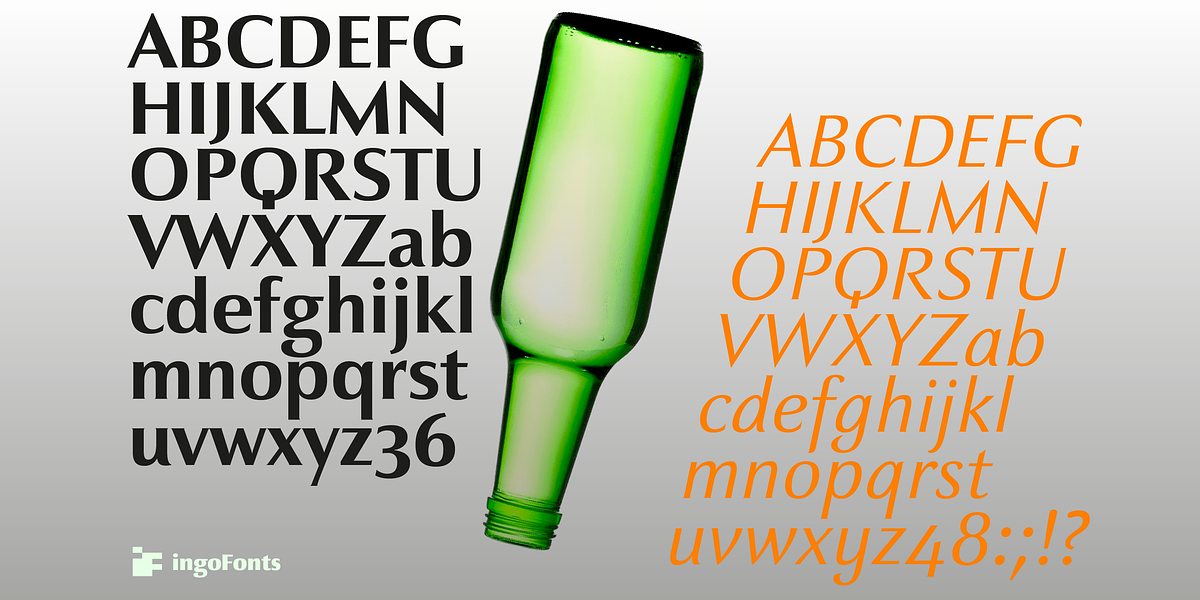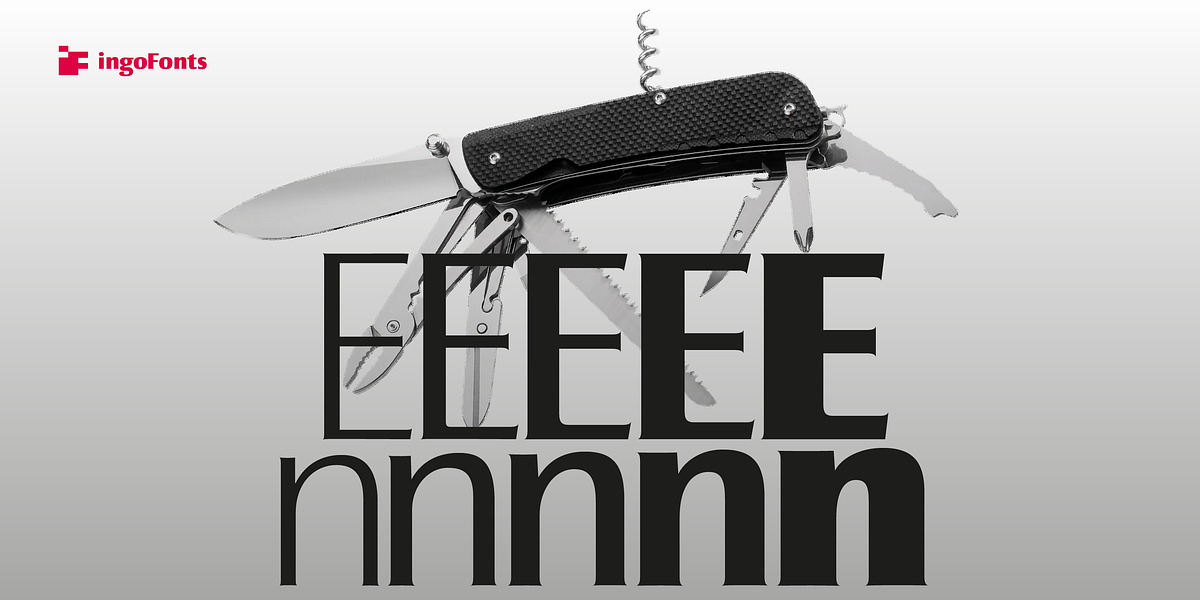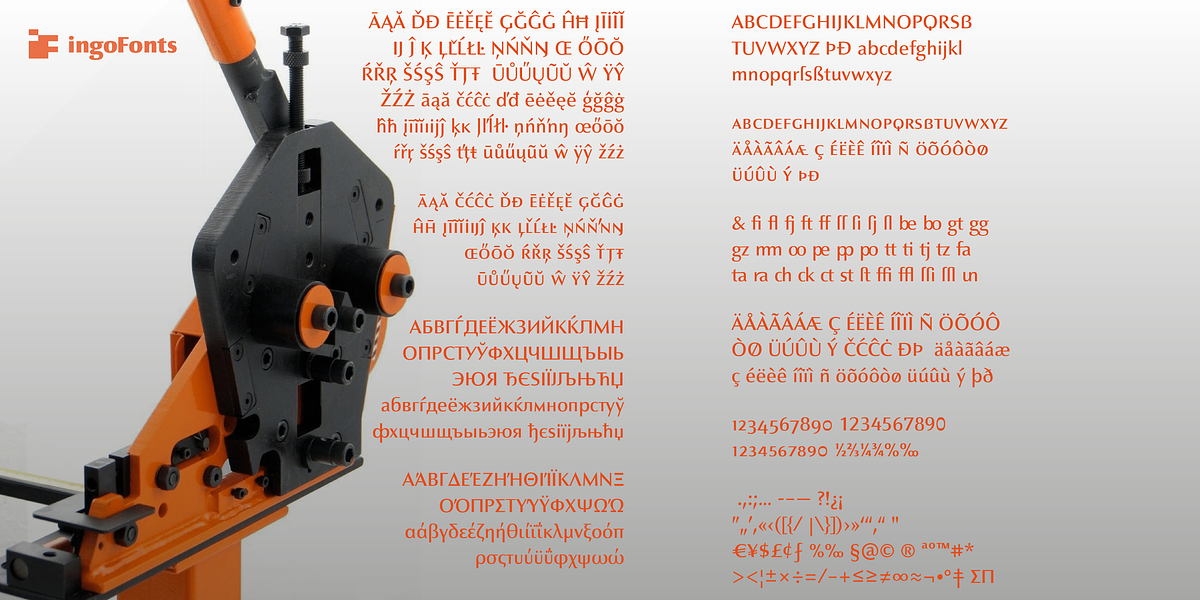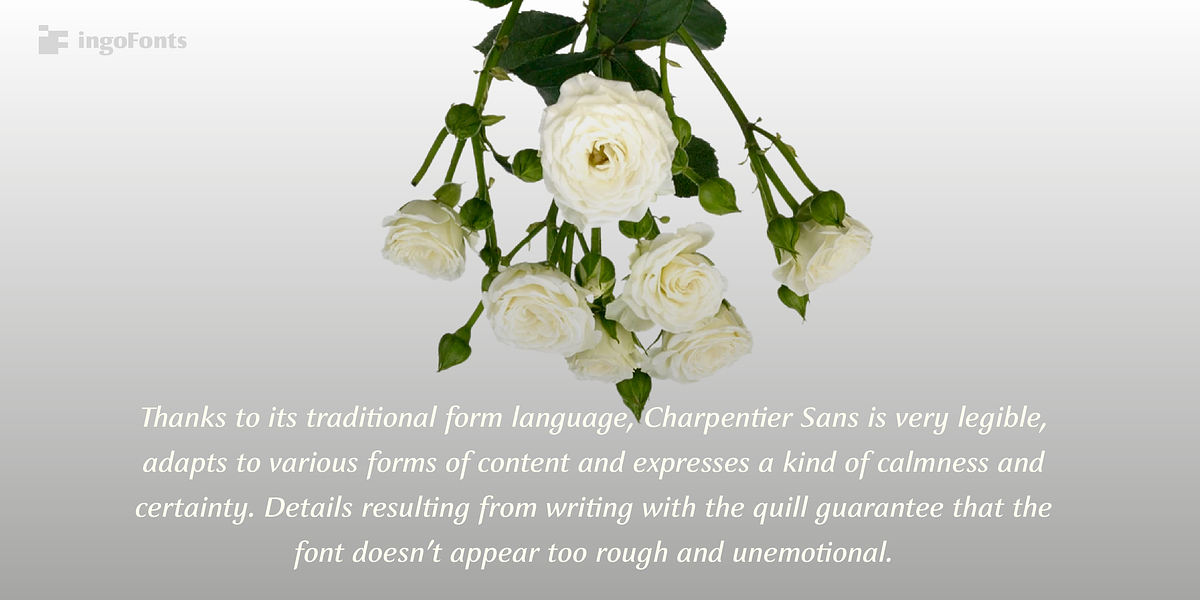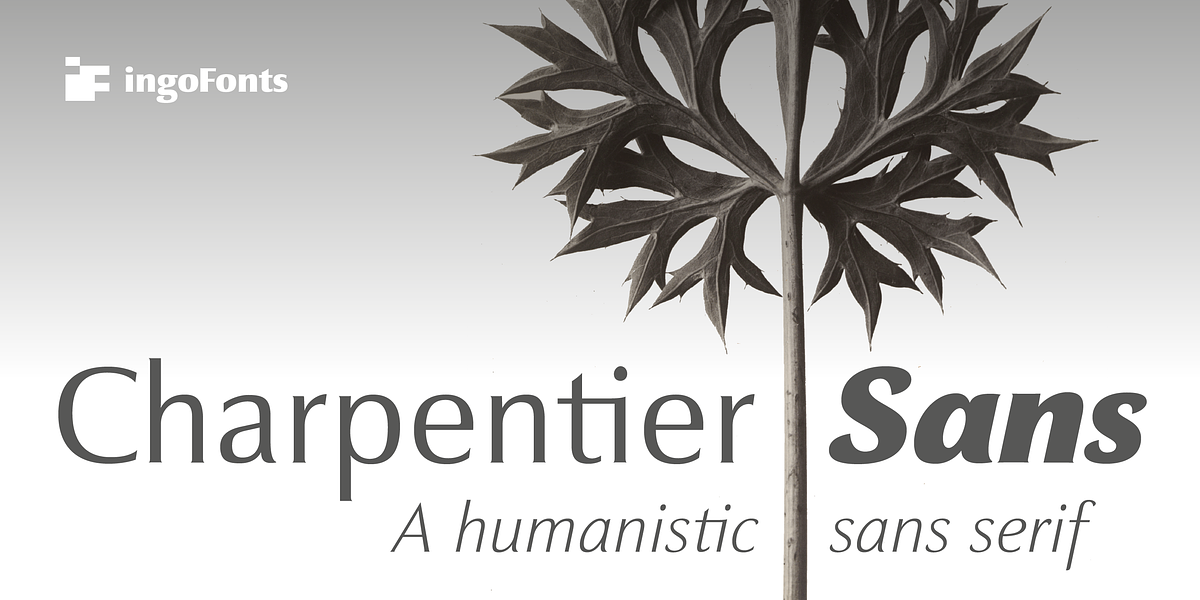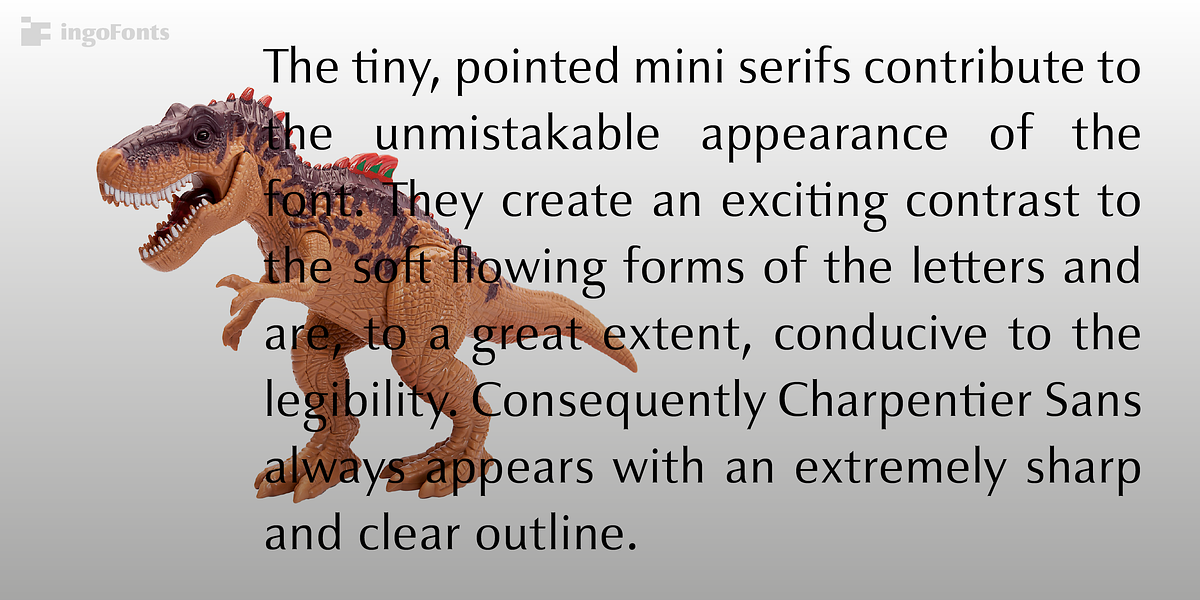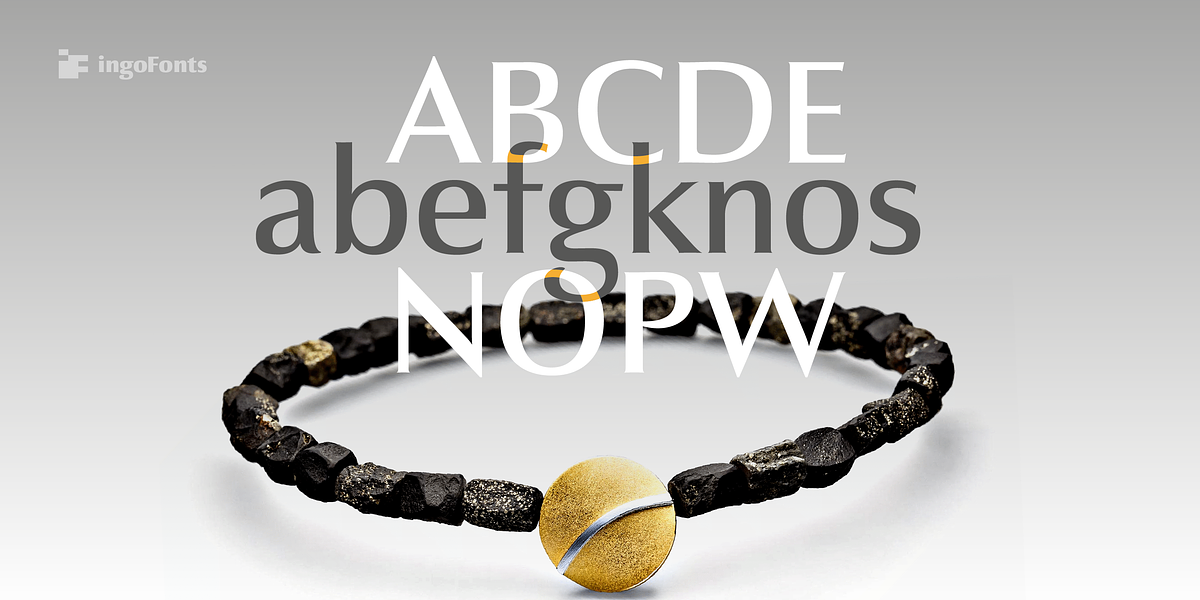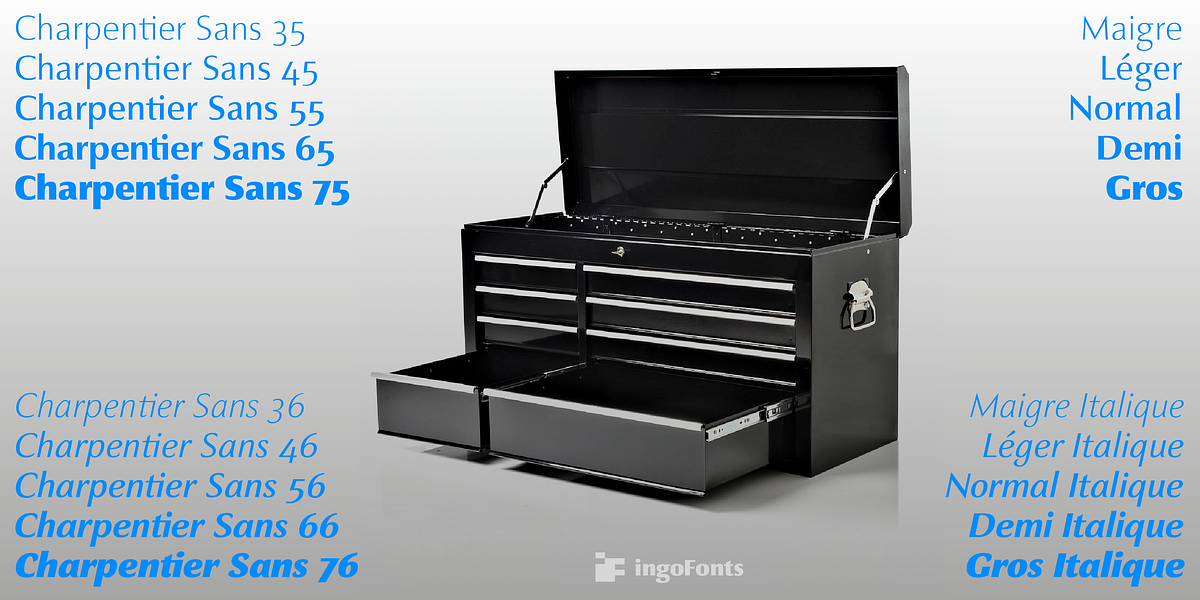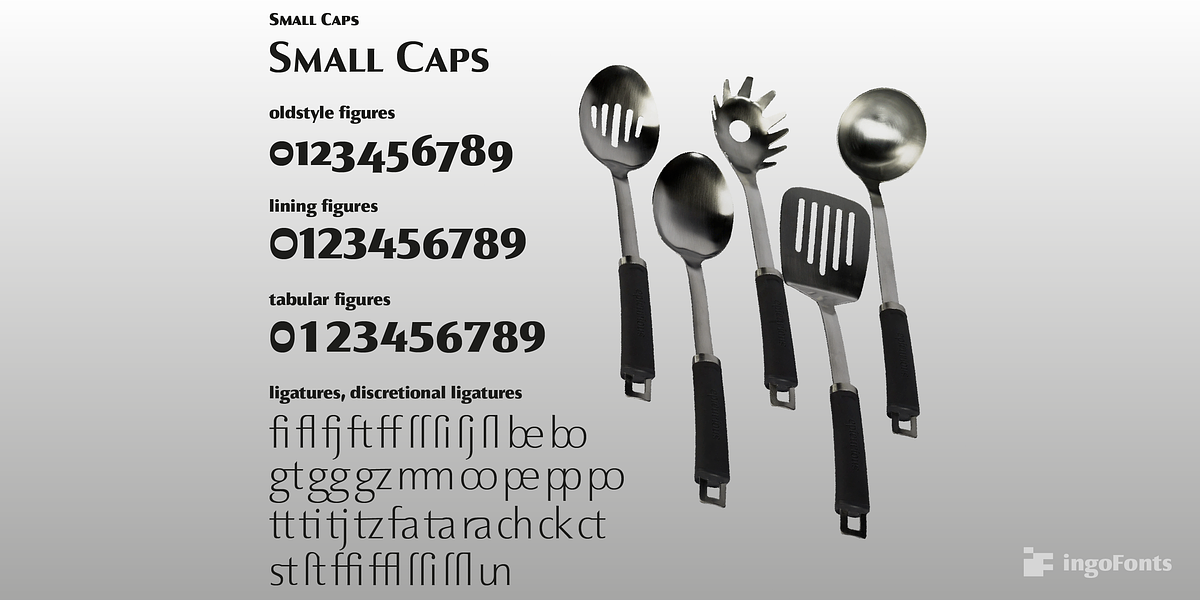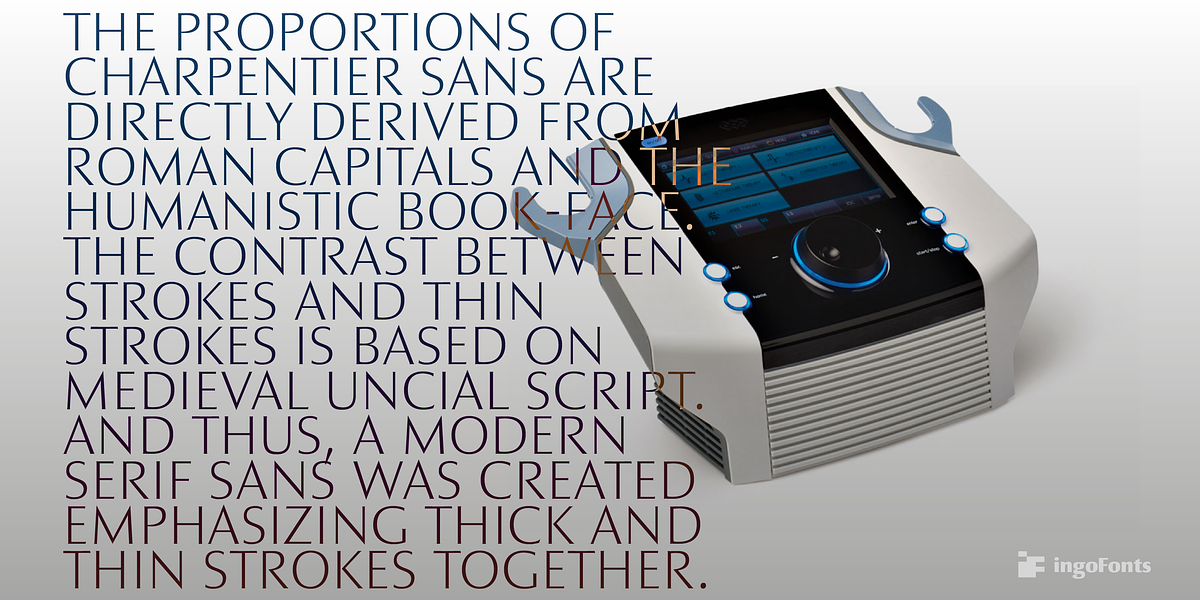
Charpentier Sans Pro
Charpentier Sans is a humanistic sans serif font designed to balance classic ideals with modern needs. Its proportions draw inspiration from Roman capitals and humanistic book-faces. The font's legibility is enhanced by subtle details reminiscent of quill writing. Tiny, pointed mini serifs create a visual contrast against the soft flowing letterforms, contributing to the font's sharp and clear appearance.